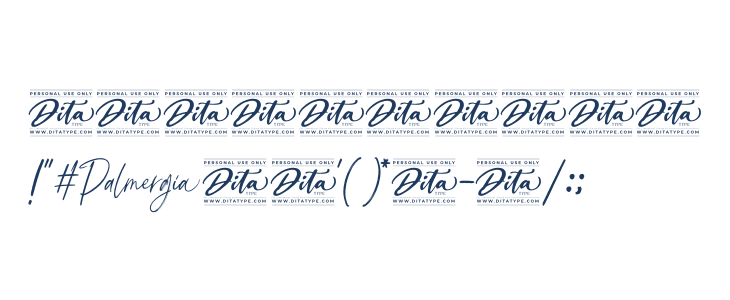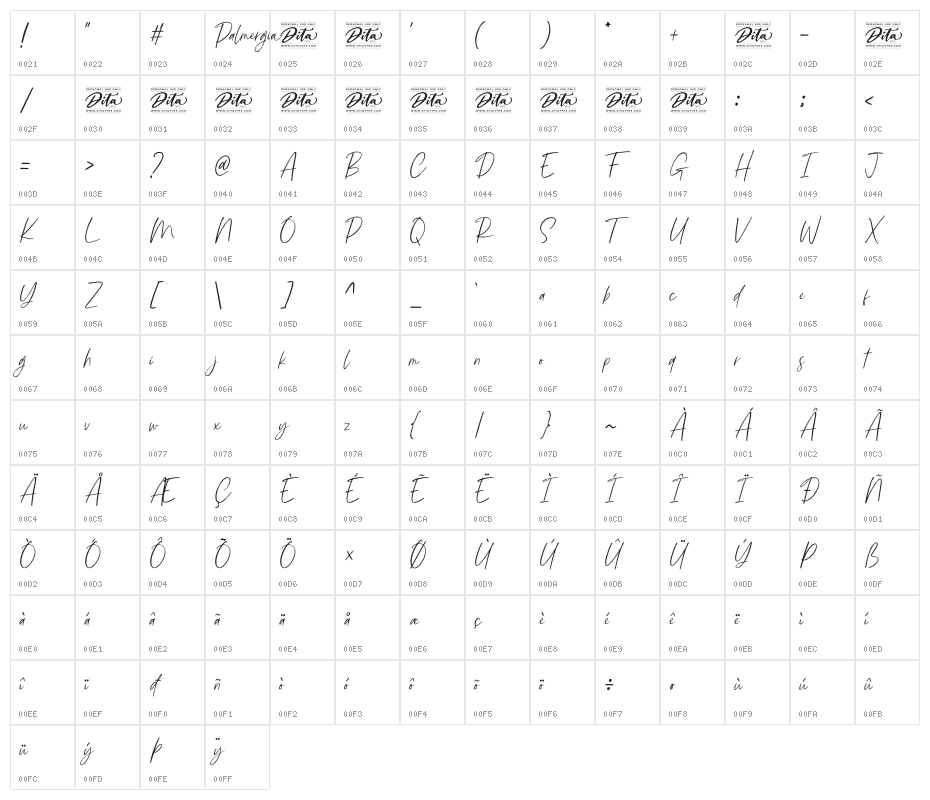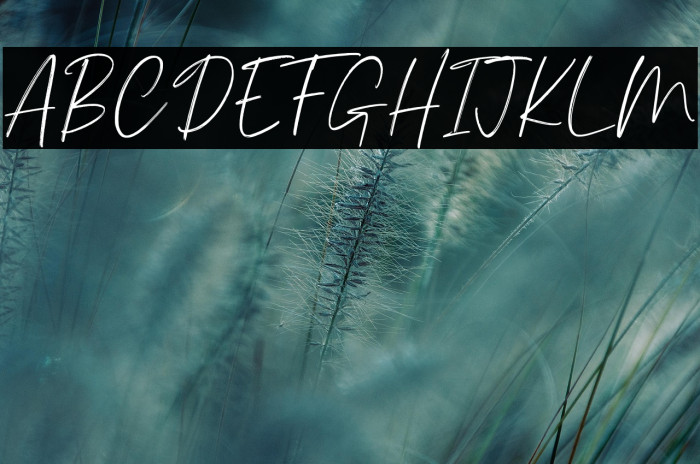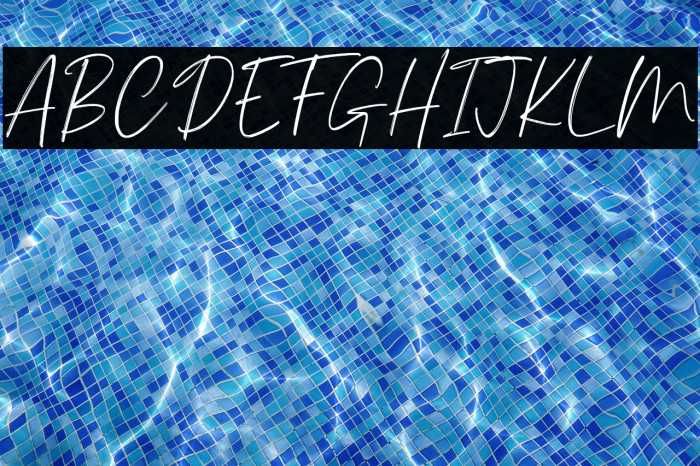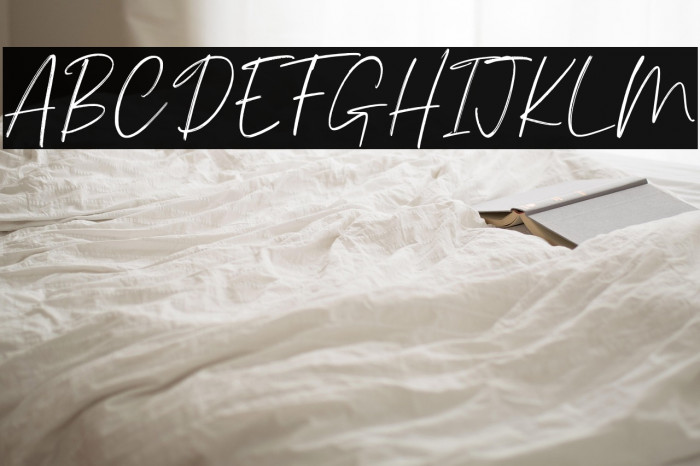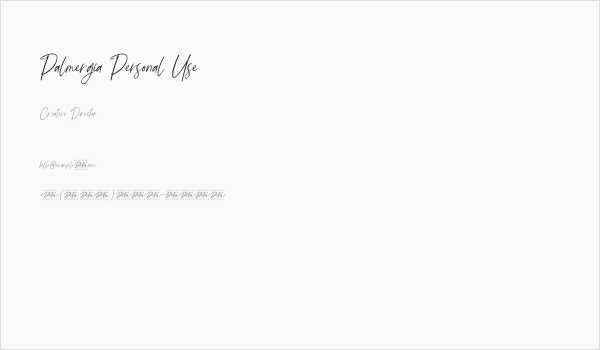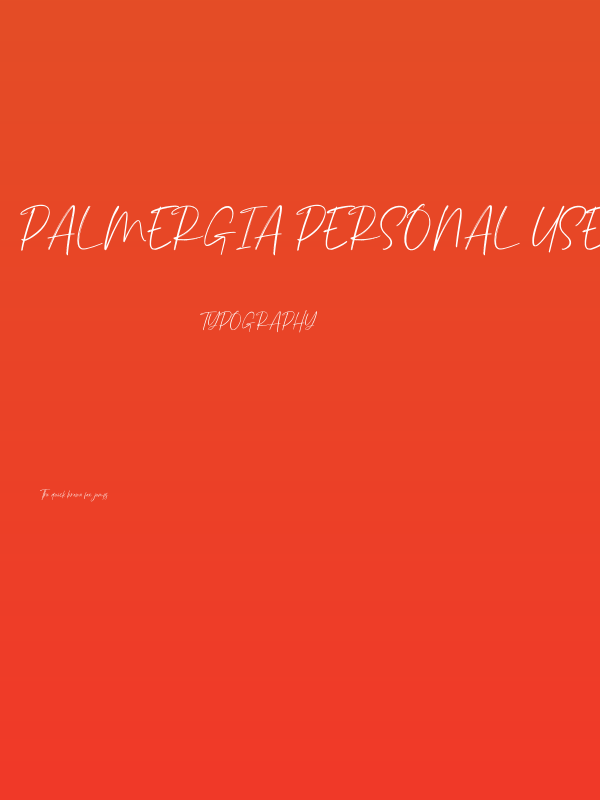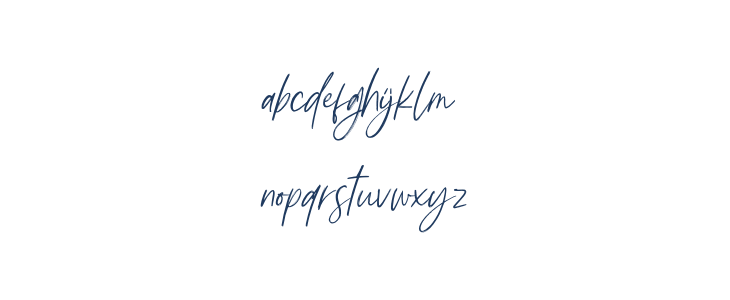
Palmergia Personal Use Font
Palmergia Personal Use Description
This font exudes a casual and elegant handwritten style, characterized by its fluid and natural strokes. The letters are slightly slanted, giving a dynamic and lively feel. The uppercase letters are tall and slender, while the lowercase letters maintain a consistent flow with a slight variation in height. The overall appearance is both sophisticated and approachable, making it ideal for personal and creative projects. The font includes a full set of uppercase and lowercase letters, numbers, and a selection of special characters, ensuring versatility in design applications.